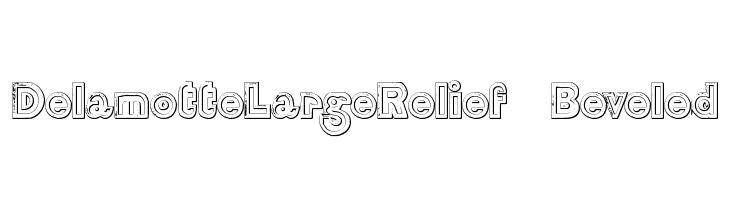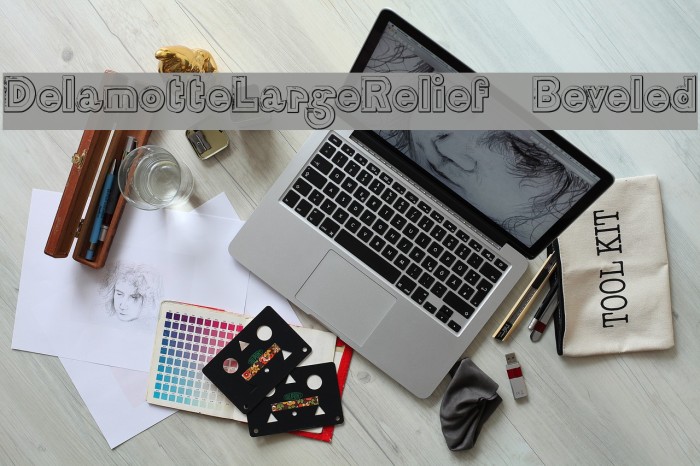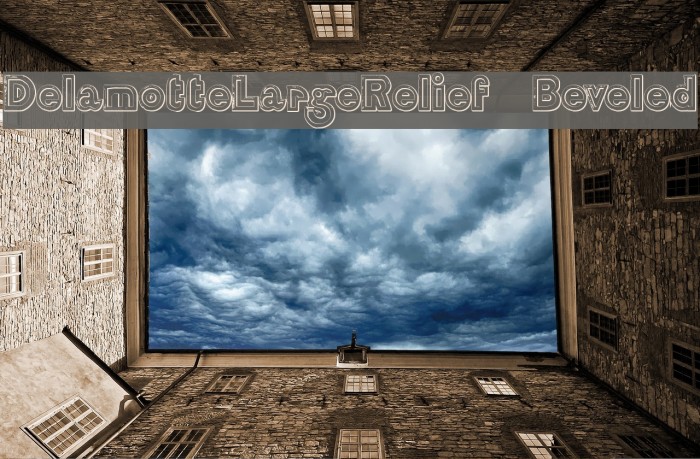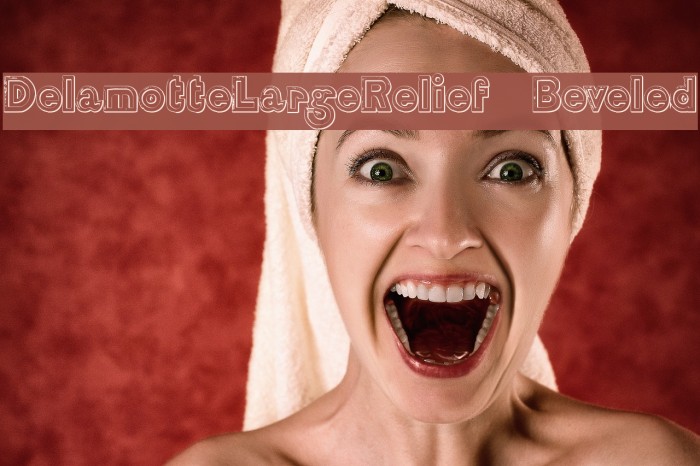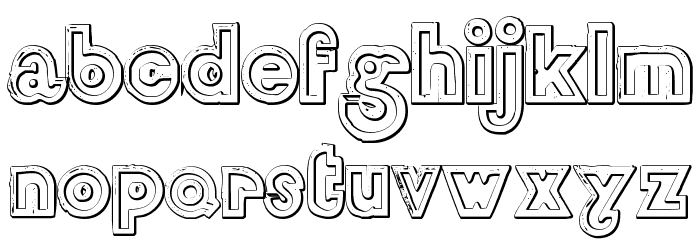
DelamotteLargeRelief Beveled Font
DelamotteLargeRelief Beveled Description
This font features a bold, three-dimensional appearance with beveled edges that create a sense of depth and texture. The uppercase and lowercase letters maintain a consistent geometric structure, with thick strokes and sharp angles. The design incorporates a distressed, vintage effect, adding character and a handcrafted feel. The numerals and special characters follow the same stylistic approach, ensuring uniformity across all glyphs. This font is visually striking and commands attention, making it ideal for impactful design projects.
A bold, three-dimensional font with beveled edges and a vintage, distressed look from Uncategorized fonts.
- Proposed Projects: Ideal for poster designs, branding, packaging, and any project requiring a bold, eye-catching typeface.
- Overall Style: Vintage